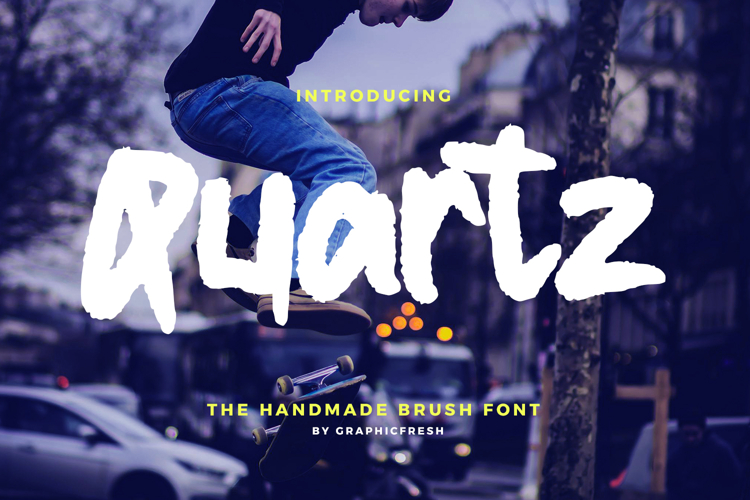
Quartz - The Handmade Brush Font
Quartz is a handmade brush font crafted with natural strokes and authentic hand-drawn character. Designed to capture the beauty of real brush movement, this font blends organic texture with smooth readability. Its balanced structure and expressive flow create a warm yet modern appearance, making it perfect for branding, logos, headlines, social media graphics, packaging, and creative projects that need a genuine handcrafted touch. Quartz delivers simplicity, personality, and artistic charm in every letter.